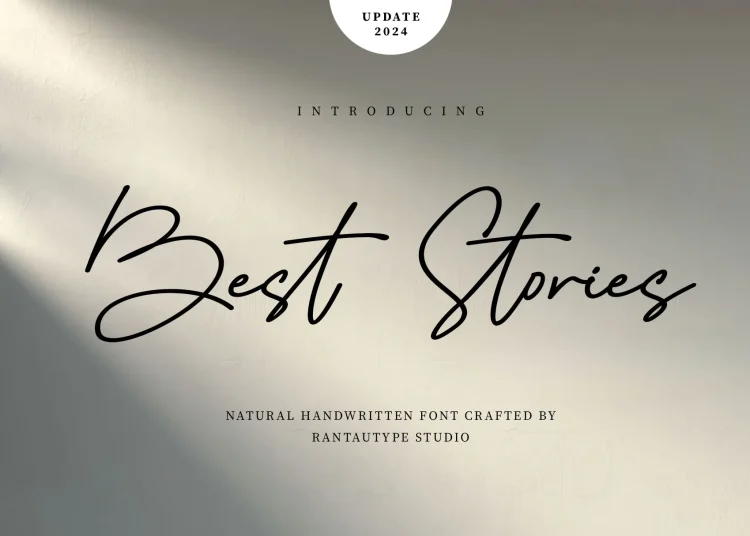
Best Stories Font
Best Stories is a natural handwritten font that adds a personal and elegant touch to any design. Crafted with a sense of sophistication and class, Best Stories is designed to be both stylish and functional, offering a seamless blend of elegance and ease of use. With its beautiful alternates and ligatures, along with multilingual support, this font ensures that your creative projects stand out with a distinctive handwritten charm.
Perfect for a variety of applications, Best Stories is an excellent choice for adding a personal flair to watermarks on photography, branding materials, wedding events, and signature logo designs. Its versatile nature also makes it ideal for quotes, album covers, magazine layouts, business cards, and any other project that benefits from a handwritten aesthetic. The font’s natural style brings a warm and approachable feel to your designs, making them memorable and engaging.